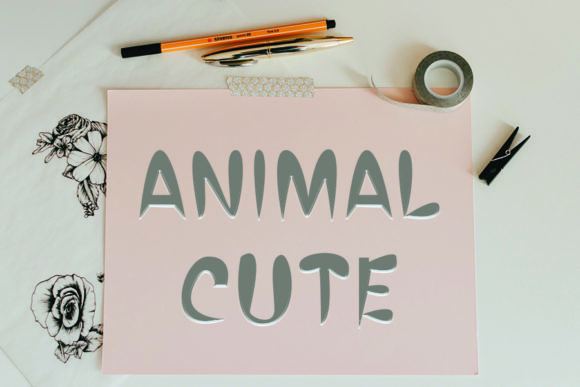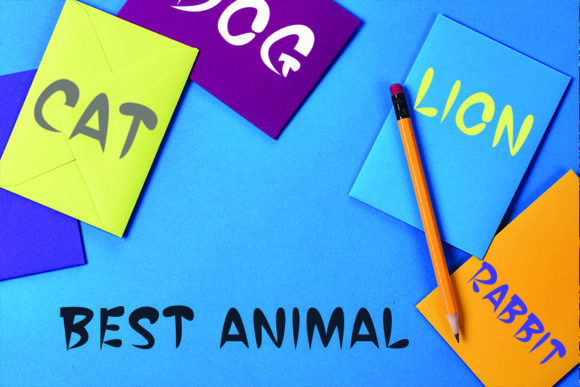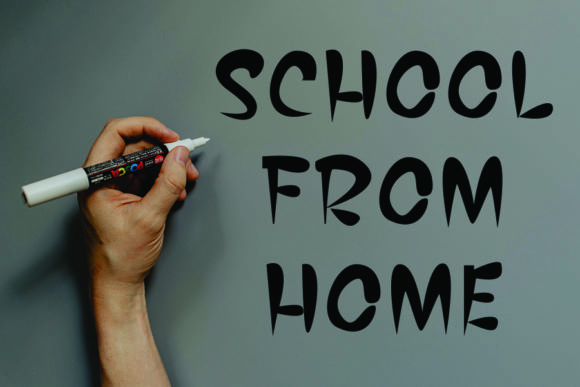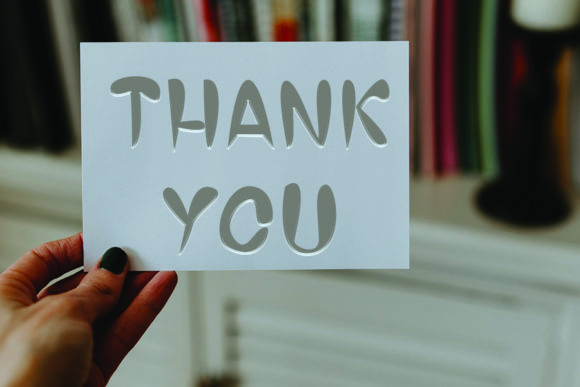
Bone Dogie Font: Elevate Your Designs with a Fun and Trendy Display Font
Bone Dogie is a fun and trendy display font that can instantly elevate your creative projects and make them stand out. This beautiful display font is perfect for designers and crafters looking to add a touch of personality and whimsy to their work. In this article, we’ll explore the features and benefits of Bone Dogie font and how you can use it to take your designs to the next level.
What is Bone Dogie Font?
Bone Dogie is a display font designed to make a statement. Its unique and playful design makes it perfect for use in headlines, titles, and other display text. The font is characterized by its bold and chunky letters, which are sure to grab attention and add a touch of fun to any design.
Features of Bone Dogie Font
Bone Dogie font comes with a range of features that make it a versatile and practical choice for designers and crafters. Some of its key features include:
- Unique and playful design: Bone Dogie font has a one-of-a-kind design that’s sure to make your designs stand out.
- Bold and chunky letters: The font’s bold and chunky letters make it perfect for use in headlines and titles.
- Easy to read: Despite its bold design, Bone Dogie font is easy to read, even at small sizes.
Benefits of Using Bone Dogie Font
There are many benefits to using Bone Dogie font in your designs. Some of the key benefits include:
- Adds personality to your designs: Bone Dogie font adds a touch of personality and whimsy to your designs, making them more engaging and memorable.
- Perfect for creative projects: The font is perfect for use in creative projects, such as craft tutorials, DIY blogs, and social media graphics.
- Versatile: The font can be used in a range of applications, from digital designs to print materials.
Examples of Bone Dogie Font in Use
Bone Dogie font can be used in a range of applications, from digital designs to print materials. Here are a few examples of how you can use the font:
- Craft tutorials: Use Bone Dogie font to add a touch of personality to your craft tutorials, such as knitting or crochet patterns.
- Social media graphics: Use the font to create eye-catching social media graphics, such as Facebook posts or Instagram stories.
- DIY blogs: Add Bone Dogie font to your DIY blog to make it more engaging and memorable.
- Print materials: Use the font in print materials, such as brochures, flyers, or business cards.
Bone Dogie font is a fun and trendy display font that’s perfect for designers and crafters looking to add a touch of personality to their work. With its unique and playful design, bold and chunky letters, and ease of use, Bone Dogie font is a versatile and practical choice for a range of applications. Whether you’re working on a craft tutorial, social media graphic, or print material, Bone Dogie font is sure to make your design stand out.